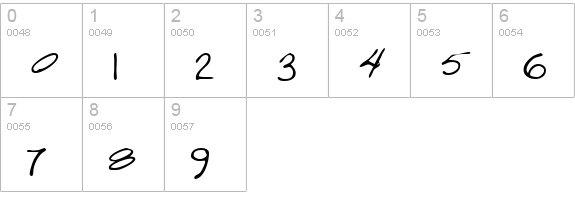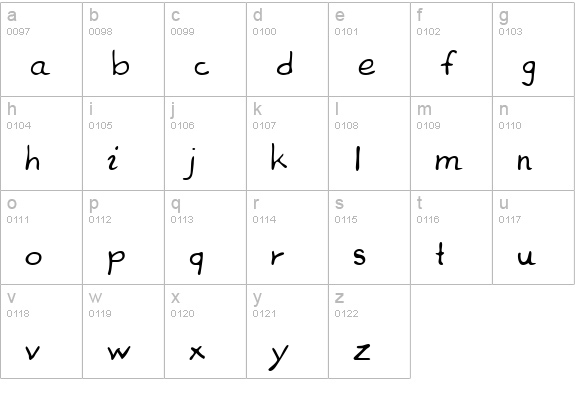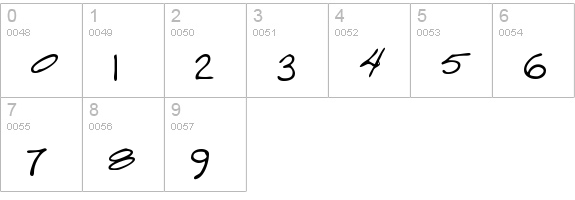
CoreysHand Regular Font Details
CoreysHand Regular is the standard, neutral variant in the CoreysHand typeface family \xE2\x80\x94 well suited to general body text, paragraphs, and standard typographic work.
CoreysHand Regular font is a charming and versatile typeface that exudes a friendly and approachable vibe. Its handwritten style adds a personal touch to any project, making it perfect for a wide range of design applications. Whether you're creating invitations, greeting cards, logos, or social media graphics, CoreysHand Regular font will bring a unique and appealing look to your work. What's even better is that CoreysHand Regular font is completely free to download at FontsMarket.com. Yes, you read that right - you can get your hands on this beautiful font at no cost at all. So why wait? Give your designs a touch of warmth and personality with CoreysHand Regular font today!